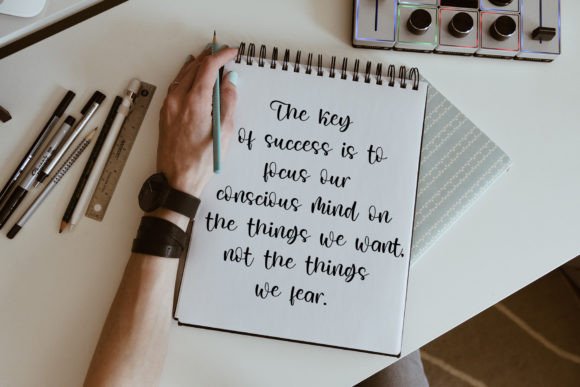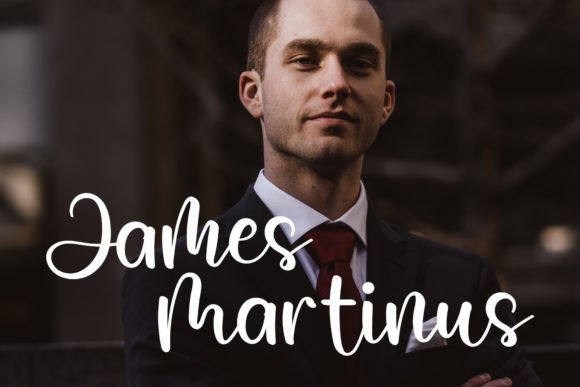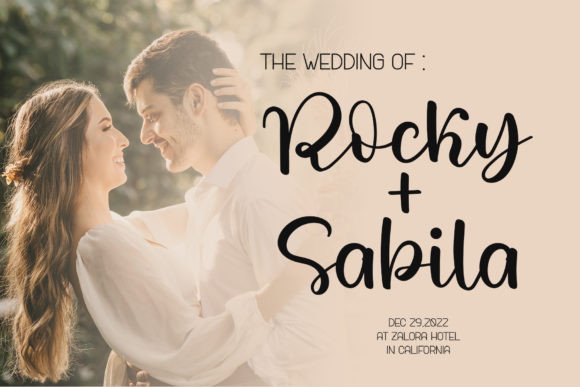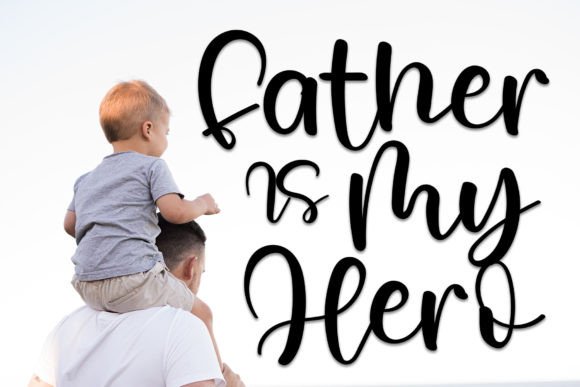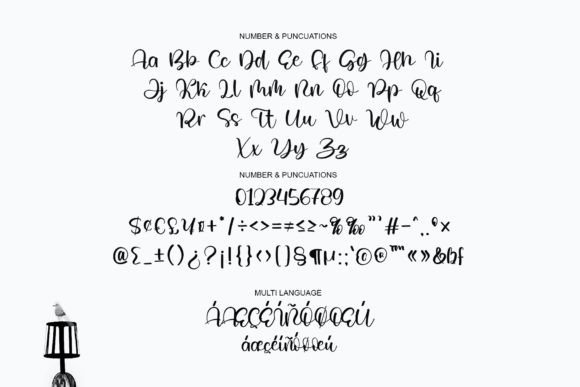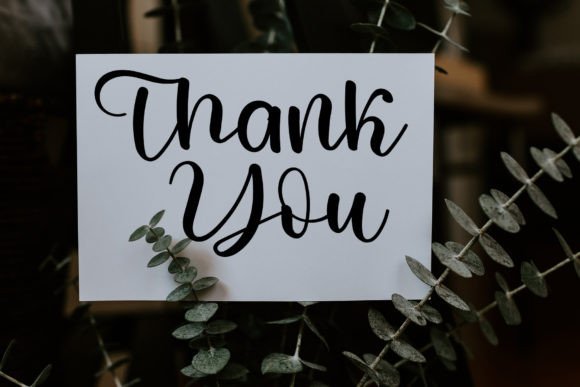
Introducing Germanic Font: Elevate Your Designs with Timeless Elegance
In the world of typography, a well-crafted font can make all the difference in elevating your design projects from ordinary to extraordinary. If you’re on the hunt for a stylish and contemporary handwritten font that exudes classic sophistication, look no further than Germanic. This beautiful font is inspired by the timeless elegance of traditional calligraphy, yet boasts a modern twist that will make your creations stand out.
The Essence of Germanic Font
Germanic is a meticulously designed handwritten font that embodies the perfect balance of style, elegance, and versatility. Its contemporary atmosphere and impeccable form make it an ideal choice for designers and crafters seeking to add a touch of sophistication to their projects. With its roots in classic calligraphy, Germanic Font brings a sense of tradition and heritage to the table, while its modern sensibilities ensure it remains fresh and relevant.
Key Features of Germanic Font
• Balanced and Varied: Germanic Font is designed to provide a harmonious balance between different letters and words, ensuring that your text remains legible and aesthetically pleasing.
• Contemporary Atmosphere: With its modern take on traditional calligraphy, Germanic Font is perfect for designers looking to create fresh and engaging content.
• Impeccable Form: Each letterform in Germanic Font has been carefully crafted to showcase impeccable form and attention to detail.
• Stylish Handwritten Aesthetic: Germanic Font boasts a stylish handwritten aesthetic that adds a personal touch to any project.
Germanic Font’s versatility makes it suitable for a wide range of design projects, including:
• Branding and Logo Design: Create a lasting impression with a custom logo that showcases the elegance and sophistication of Germanic Font.
• Stationery and Invitations: Add a touch of classic elegance to your stationery, invitations, and greeting cards.
• Packaging and Product Design: Elevate your product packaging with a font that exudes style and sophistication.
• Digital and Print Media: Use Germanic Font in your digital and print media projects, such as brochures, flyers, and social media graphics.
Why Choose Germanic Font?
• Unique and Memorable: Germanic Font’s distinctive style ensures that your designs will stand out from the crowd.
• Easy to Read: The font’s balanced and varied design makes it easy to read, even at smaller sizes.
• Highly Versatile: Germanic Font can be used in a wide range of design projects, from branding and packaging to digital and print media.
• Timeless Elegance: With its roots in traditional calligraphy, Germanic Font boasts a timeless elegance that will never go out of style.
In conclusion, Germanic Font is a stylish and sophisticated handwritten font that is sure to elevate your design projects to new heights. With its perfect balance of classic elegance and modern sensibilities, this font is ideal for designers and crafters seeking to add a touch of timeless sophistication to their creations. Whether you’re working on branding, packaging, or digital media projects, Germanic Font is the perfect choice for those who demand the best.